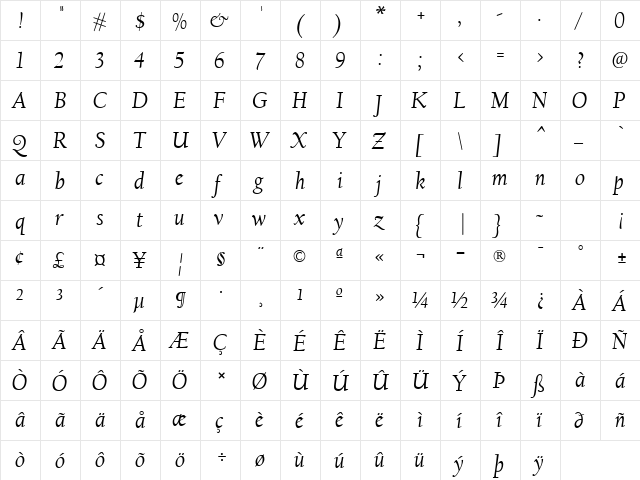
Californian FB Italic
| Foundry | The Font Bureau, Inc. |
| Designer | David Berlow |
Design Context for Californian FB Typeface
Californian FB offers clean, dependable letterforms without strong stylistic allegiance, making it a practical choice for designers who need flexibility. The slanted form adds forward momentum and visual energy.
Pro Tip: Try Californian FB for annotation and caption copy alongside an upright companion — the contrast in angle creates a dynamic but ordered typographic system.